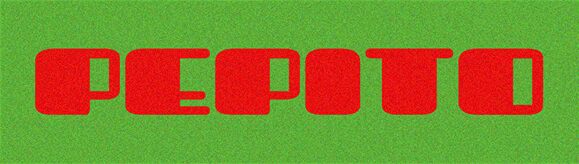
Pepito Regular
Pepito, the brainchild of font designer Vladimir Nikolic, is a stunning display font that effortlessly captures the essence of retro 3D aesthetics. Its extra-bold weight and extra-expanded width make it an ideal choice for projects seeking to exude boldness and impact. Pepito's charismatic presence lends itself perfectly to vintage-inspired branding campaigns, eye-catching signage designs, or even creating attention-grabbing titles for movie posters. With its distinct personality and visually striking appeal, Pepito is guaranteed to inject a dose of nostalgia into any project, transporting viewers back to the golden era of retro design.